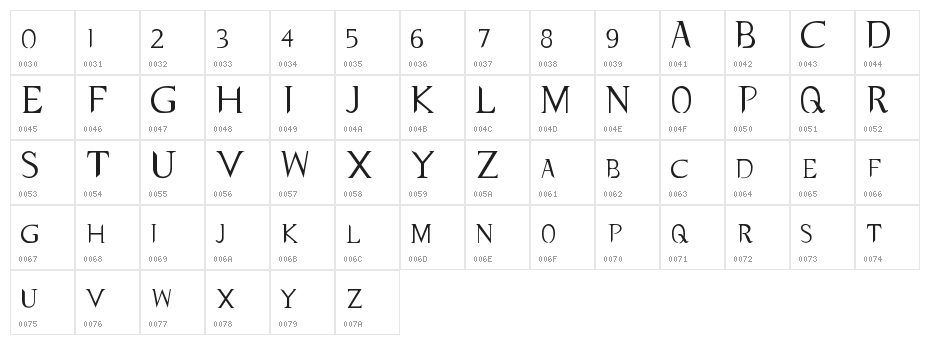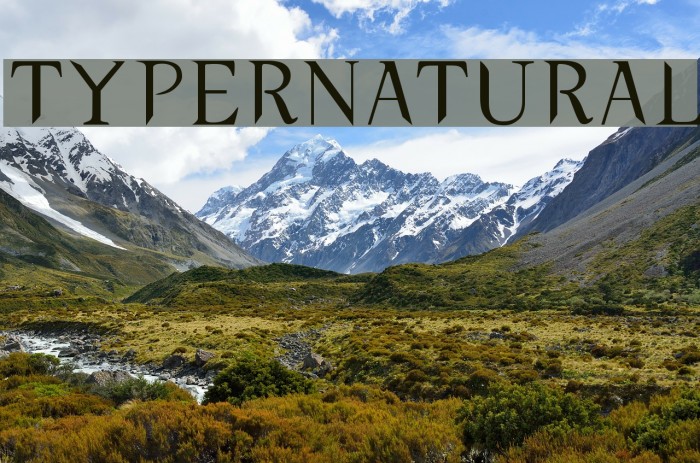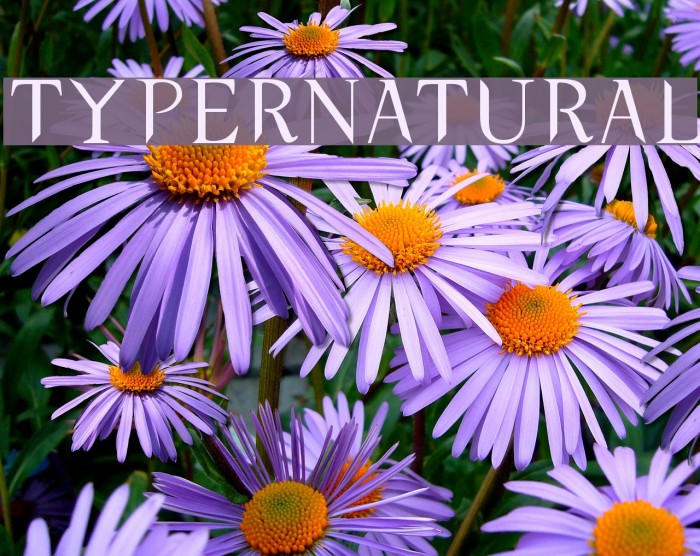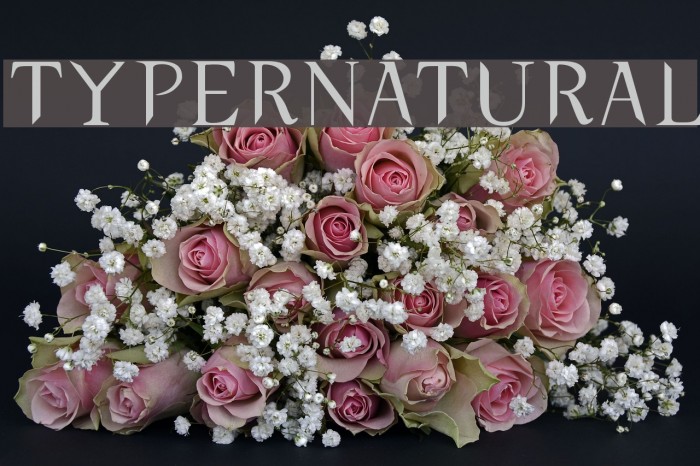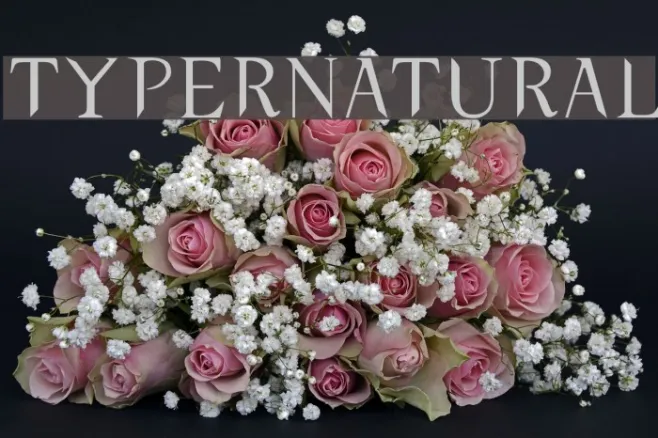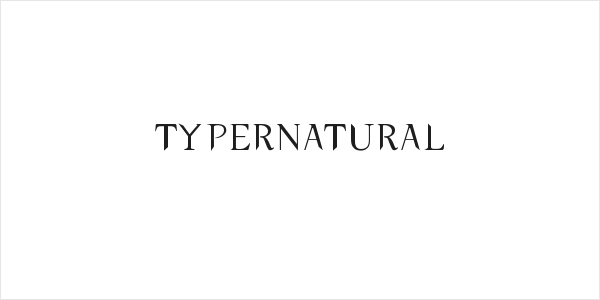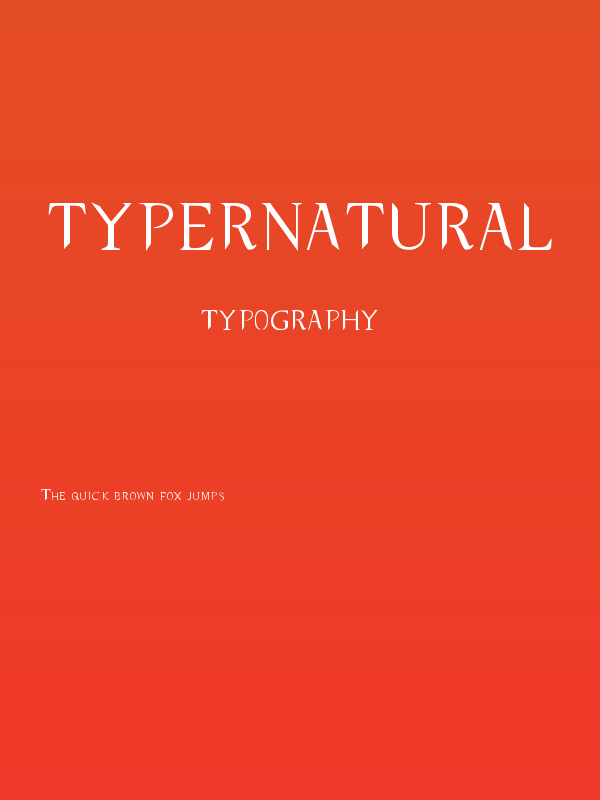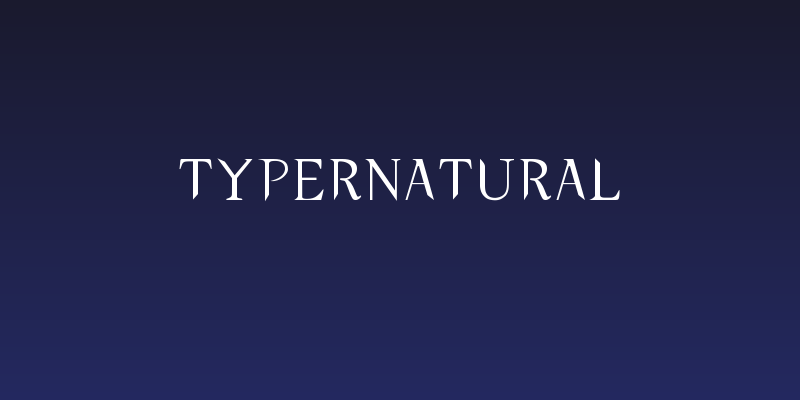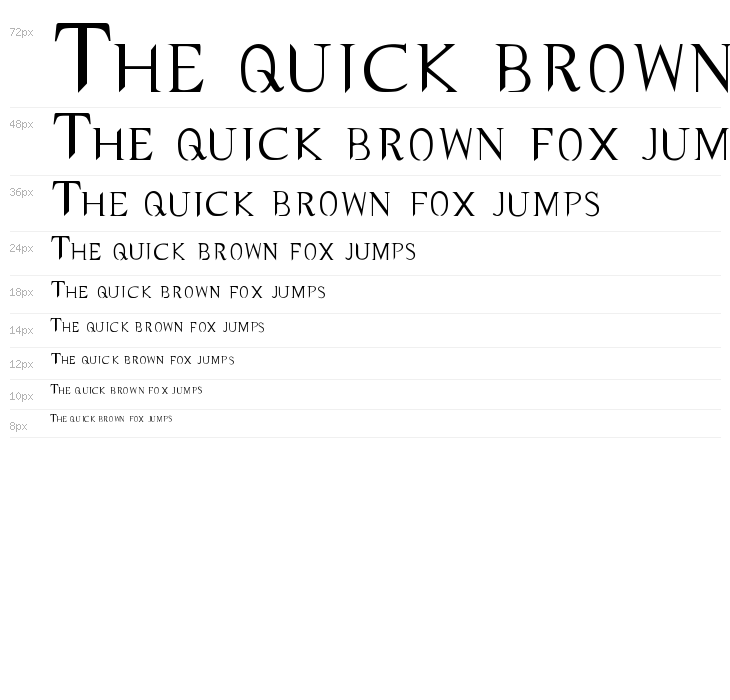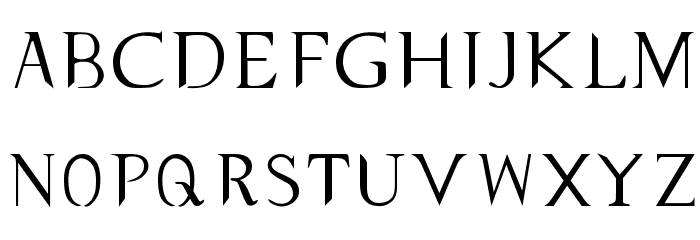
typernatural Font
typernatural Description
This font features a unique blend of classic and modern elements, characterized by its sharp serifs and elegant curves. The uppercase letters exhibit a strong presence with slightly elongated forms, while the lowercase letters maintain a consistent flow with subtle variations in stroke width. The numerals are distinct and easily readable, complementing the overall aesthetic. Special characters are designed with the same attention to detail, ensuring a cohesive look across all glyphs. The font's design is both sophisticated and versatile, making it suitable for a wide range of applications.
| Proposed Projects | Ideal for branding, editorial design, book covers, and luxury product packaging. |